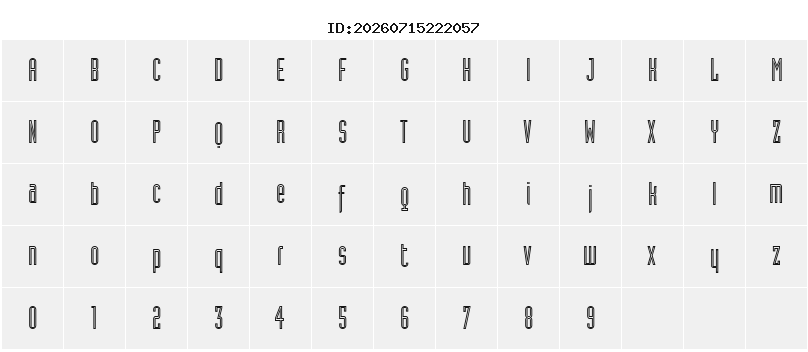
Assembly Outline SSi Preview
• Font Name: Assembly Outline SSi
• Font Style: Alternate
• Full Font Name: Assembly Outline SSi Alternate
About Assembly Outline SSi.ttf
Assembly Outline SSi.ttf is a modern, elegant sans-serif font designed for ultimate readability and visual harmony. Perfect for branding, headlines, web design, and print materials.